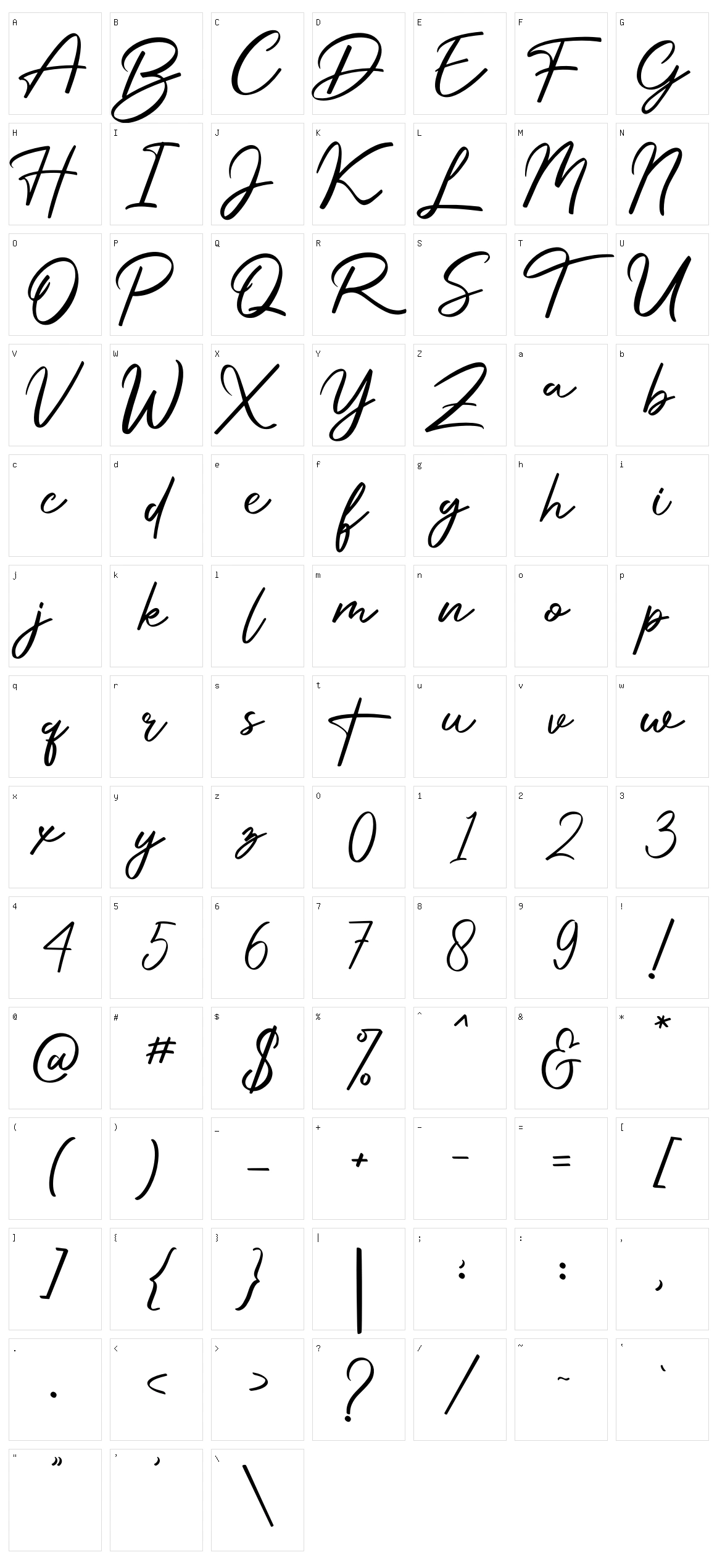
The free font Procreate Signature is carefully designed by Febryl Arully, showcasing a thoughtful balance of creativity and usability and falls under the Script font style. When you download the ZIP file, it contains only 114.66 KB of font files, making it lightweight and quick to download. Please review the license details below to understand permitted usage and distribution rights. If license information is not available, we recommend using this font for personal projects only or contacting the author directly for commercial usage permissions.